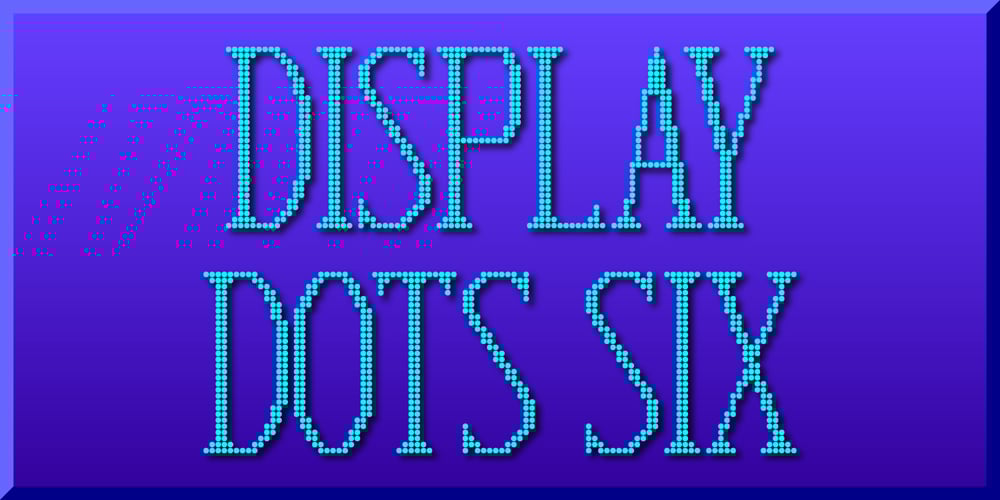
Display Dots Six
Display Dots Six Font Family was designed by Gerald Gallo and published by Gerald Gallo. Display Dots Six contains 1 styles and family package options. Display Dots Six is a display font not intended for text use. It was designed specifically for display, headline, logotype, branding, and similar applications. Display Dots Six has an uppercase alphabet, numbers, and punctuation.